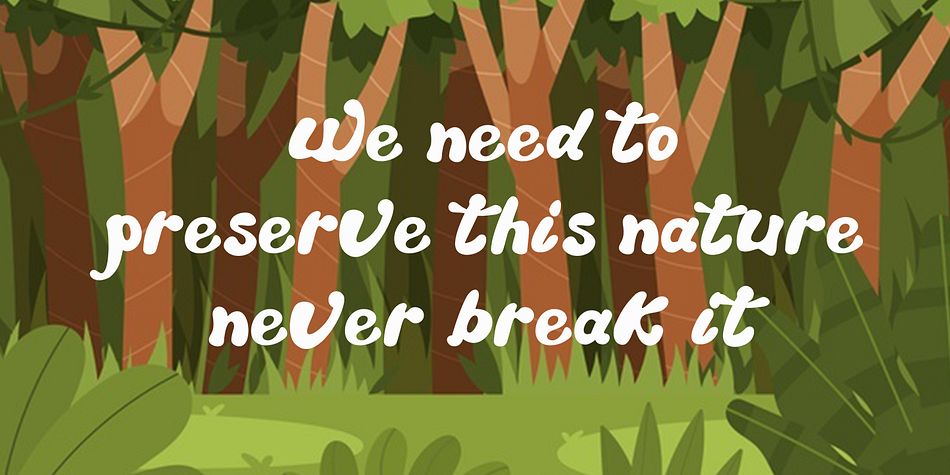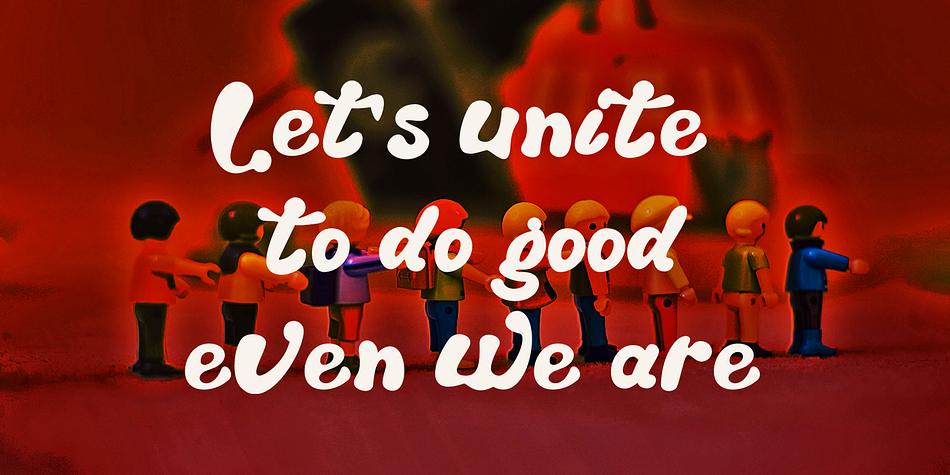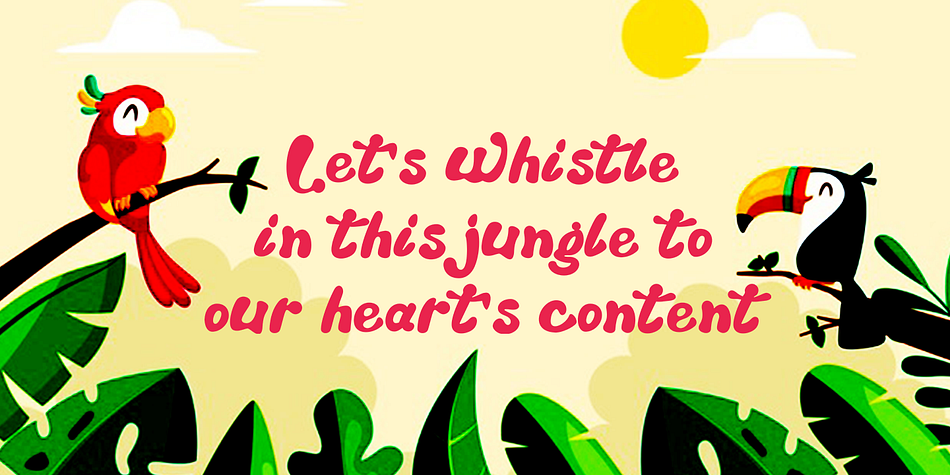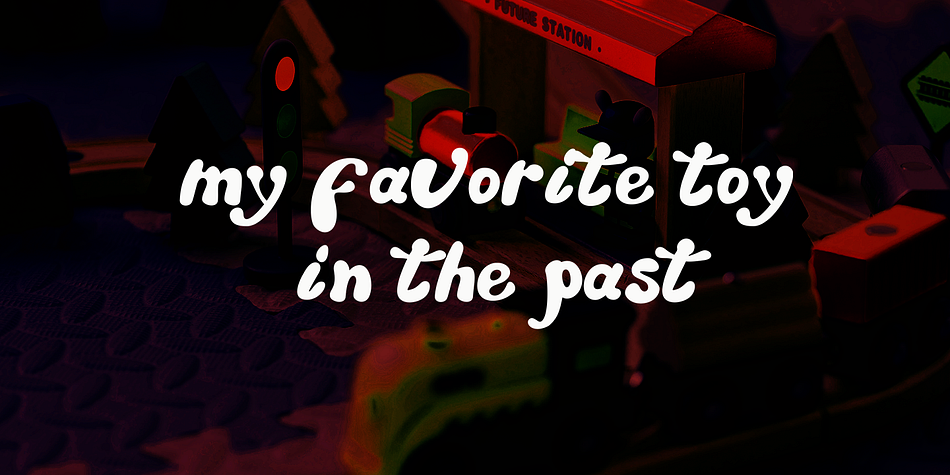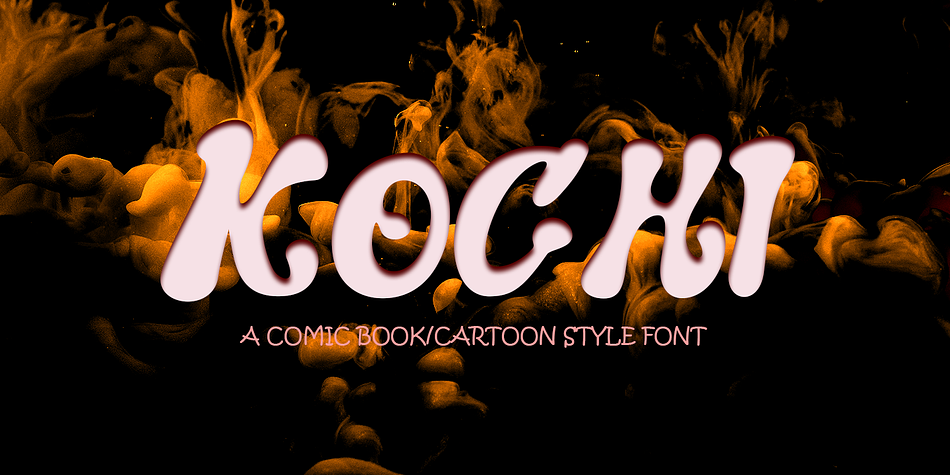
KOCHI
KOCHI is a comic and display serif font family published by Gatype.
Comic Collection This special creative font is a fun mix of styles that can be used for font comics, or any other design project. KOCHI font if you want to use for your work this font can be used easily and simply because there are many features in it contains a full set of lowercase and uppercase letters, various punctuation marks, numbers, and multilingual support.